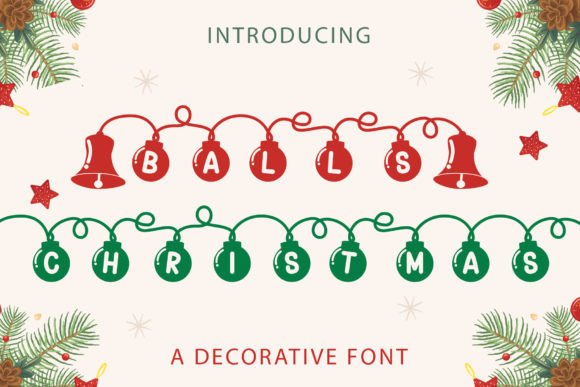
Introducing the enchanting and one-of-a-kind Balls Christmas Font, designed by the talented team at Densu Creative. This decorative font is specifically crafted to capture the magic and joy of the holiday season, making it the ultimate choice for all your Christmas-themed projects.
With its delightful design inspired by twinkling stars and radiant lights, Balls Christmas Font adds a touch of festive cheer to any creative endeavor. Whether you're looking to create captivating Christmas cards, adorable holiday t-shirts, charming stickers, or captivating cover books, this font is the perfect companion.
Picture the smiles on your loved ones' faces as they receive personalized Christmas cards featuring this unique font. The playful and whimsical nature of Balls Christmas Font will instantly transport them to a world filled with warmth and happiness.
Not limited to just physical items, this font is also ideal for crafting captivating social media posts that are sure to catch the eye of your audience. Imagine the engagement and buzz generated by using this font to create eye-catching graphics and announcements for your brand's holiday promotions.
Furthermore, Balls Christmas Font is an excellent choice for children's books, allowing you to create captivating and memorable reading experiences for the little ones. The font's charming and inviting appearance will surely spark their imagination and make the stories come alive.